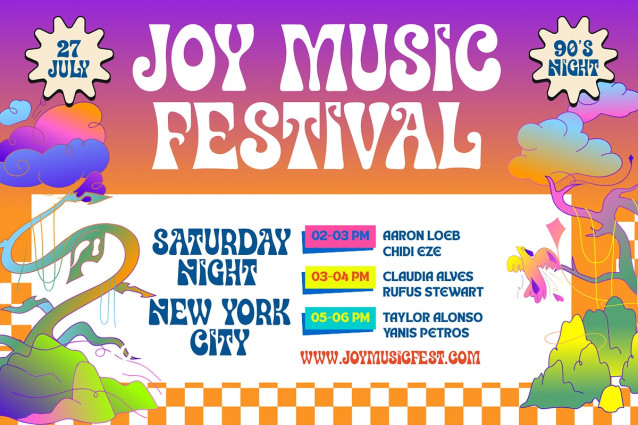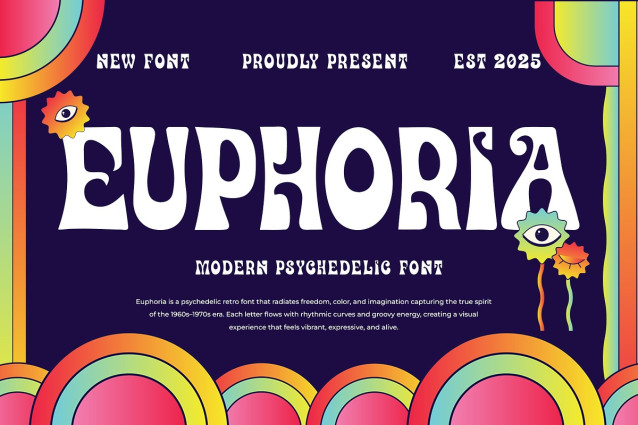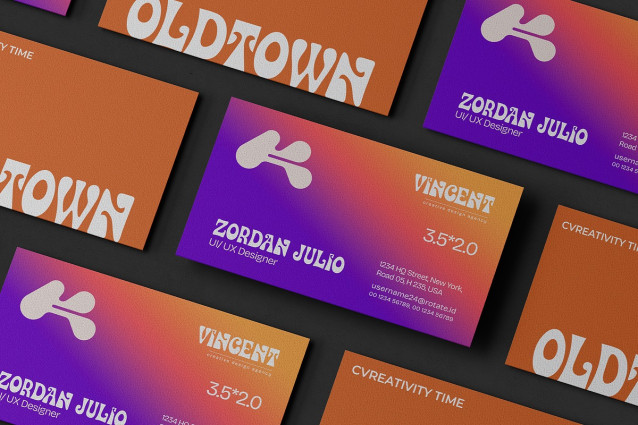
Euphoria Display Typeface is a modern psychedelic display font designed to bring bold, vibrant energy into your creative projects. Inspired by 70s retro aesthetics yet crafted with a contemporary touch, this typeface features fluid curves, groovy shapes, and expressive letterforms that radiate personality.
Euphoria Display Typeface
| Classification: | Display Fonts, Modern Fonts, Psychedelic Fonts, Retro / Vintage Fonts |